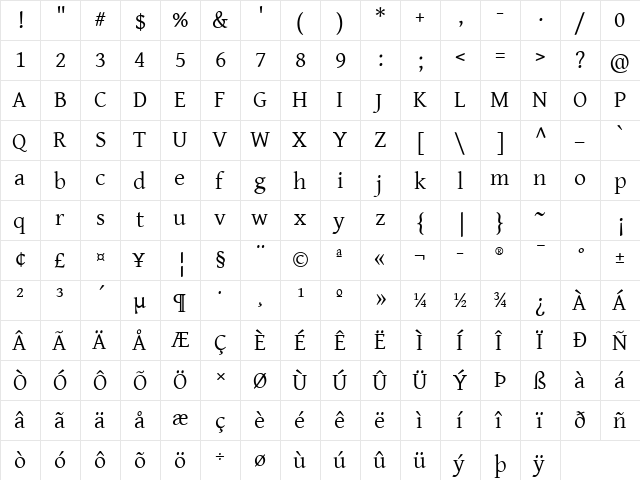
Gentium Basic Regular
| Foundry | SIL International |
| Designer | J. Victor Gaultney and Annie Olsen |
Design Context for Gentium Basic Typeface
Gentium Basic takes a measured approach to typography — its balanced proportions and neutral character make it a reliable workhorse for both digital and print work.